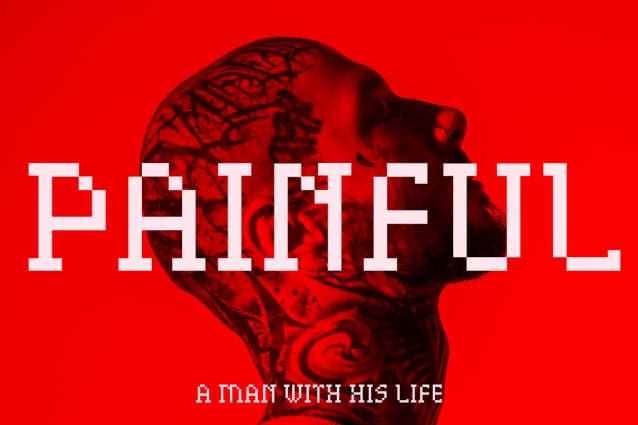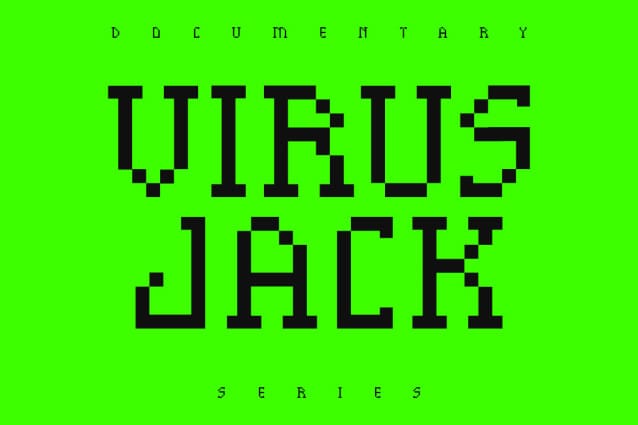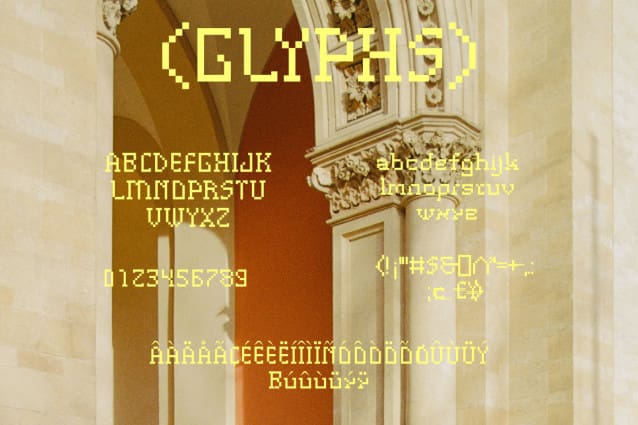
Groutpix Flow Slab Font
Groutpix Flow Slab Font, It would be a perfect choice to design posters, affiches, logos, t-shirt and magazine prints, eye-pleasing typographic designs and more.